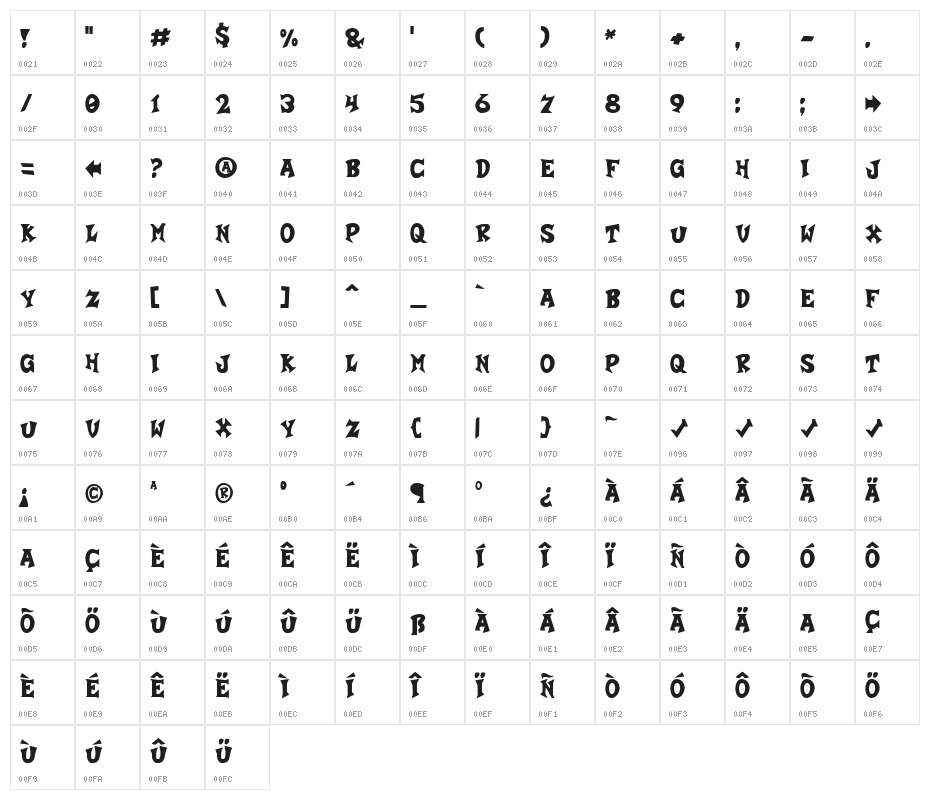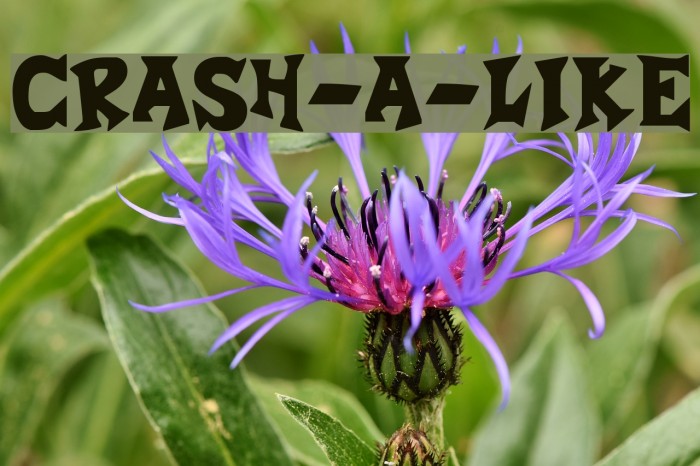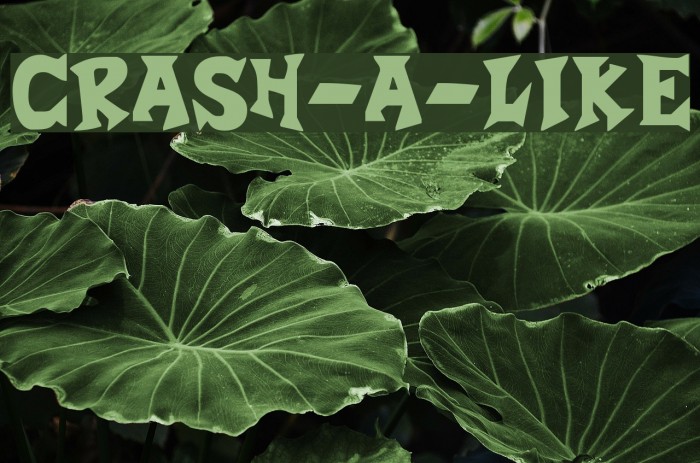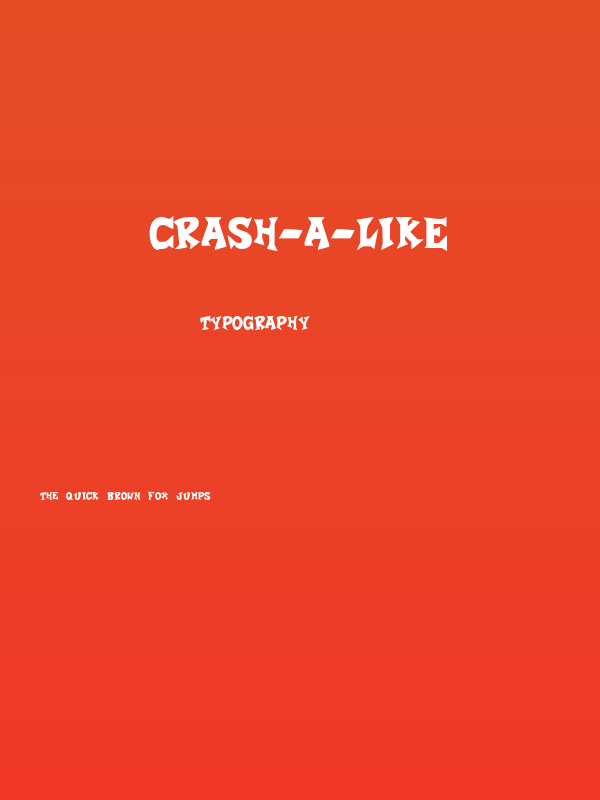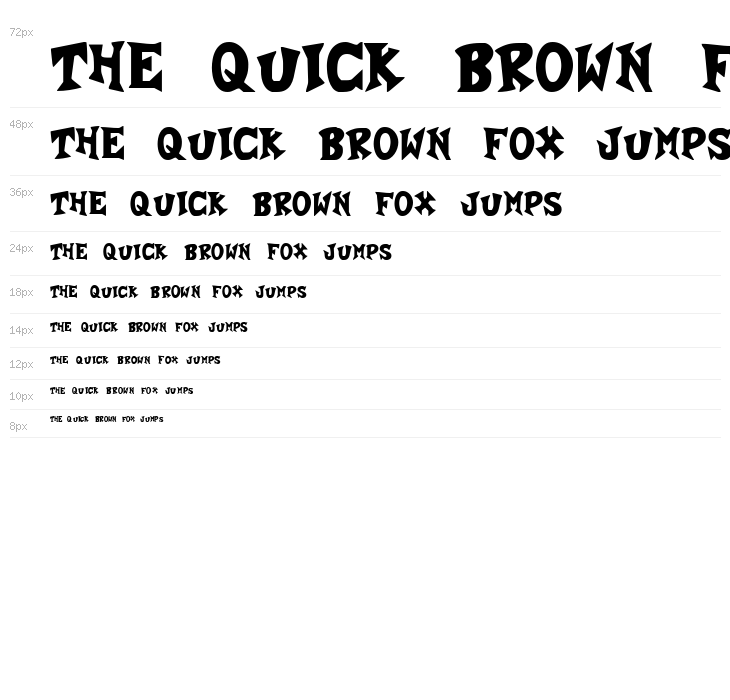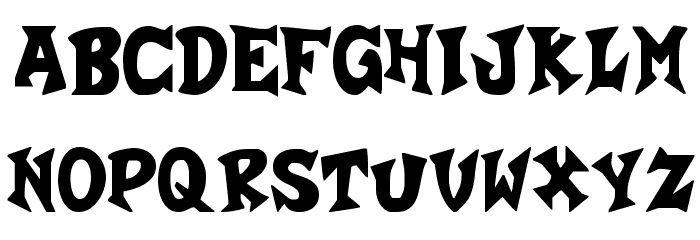
Crash-a-Like Font
Crash-a-Like Description
This font features a bold and dynamic style with sharp, angular edges that give it a sense of movement and energy. The characters are heavily stylized, with exaggerated serifs and a slightly irregular form that adds a playful, almost cartoonish quality. The uppercase and lowercase letters maintain a consistent design, ensuring readability while still offering a unique visual flair. The numbers and special characters are equally bold, making them stand out and complement the overall aesthetic. This font is ideal for projects that require a strong visual impact and a touch of whimsy.
| Proposed Projects | Perfect for video game titles, comic book covers, posters, and branding that requires a bold, energetic look. |